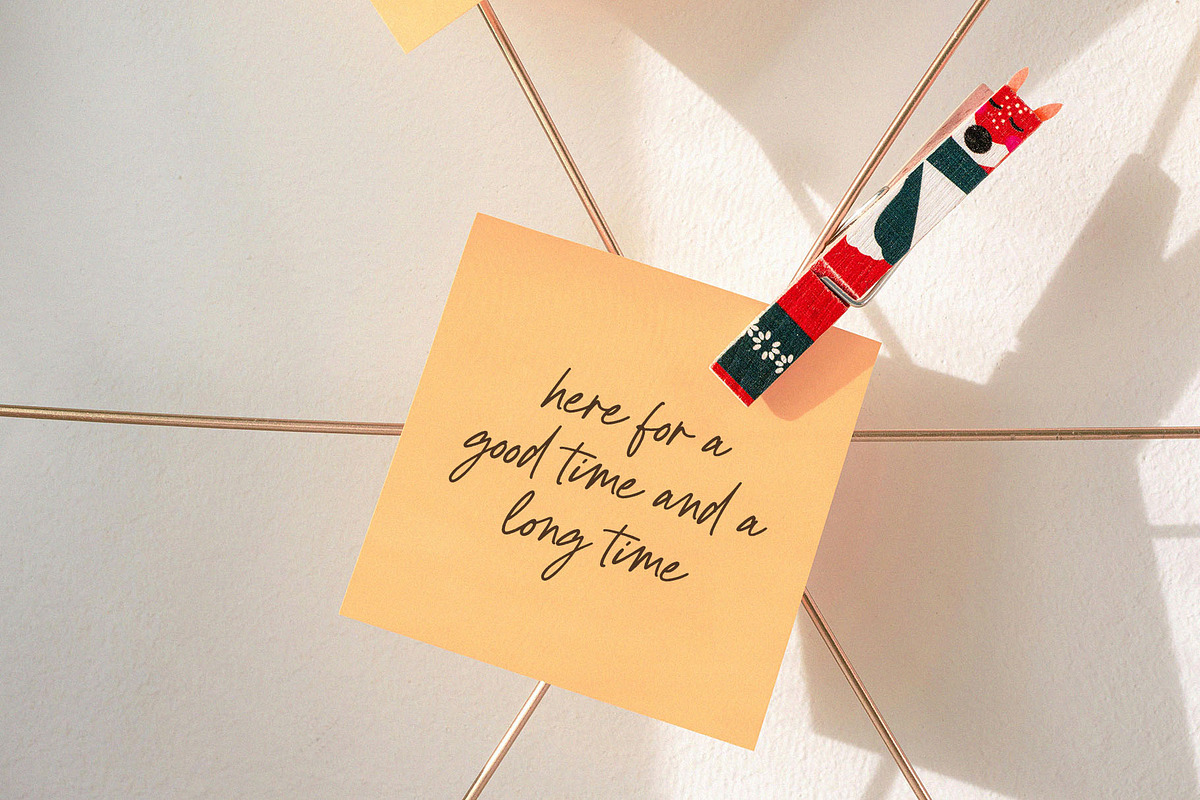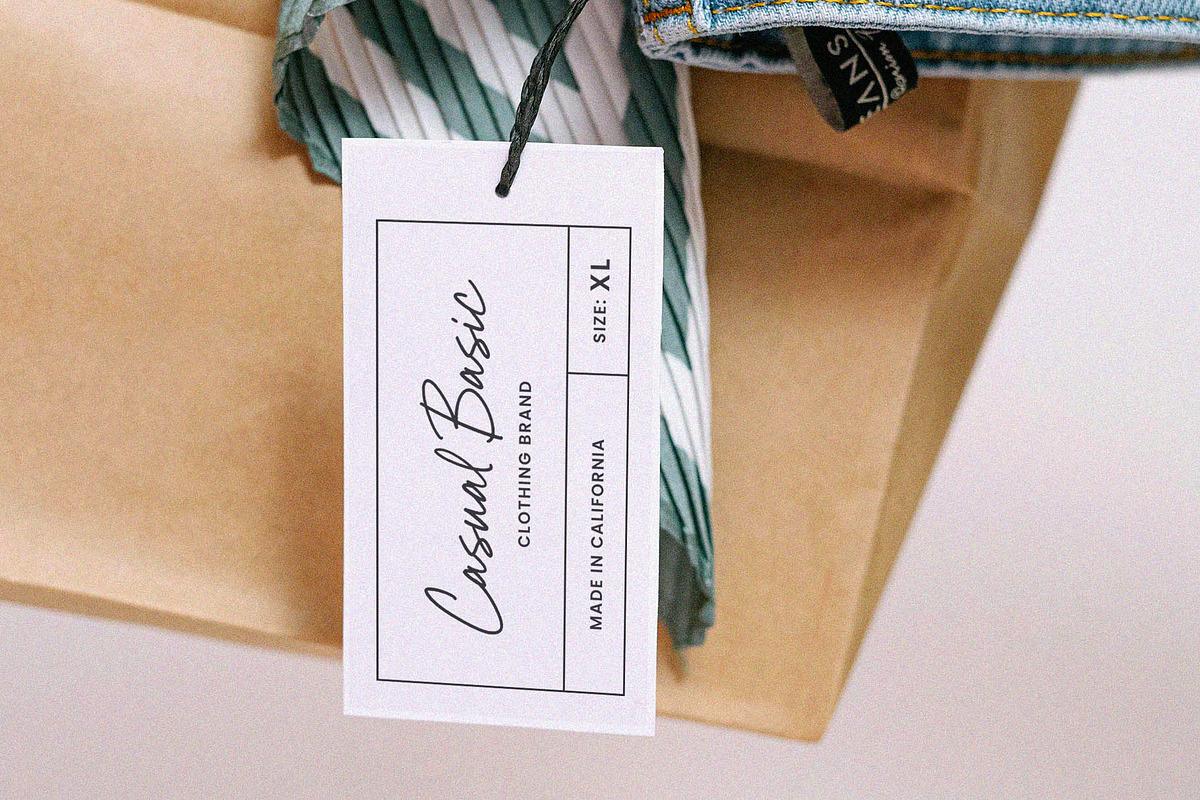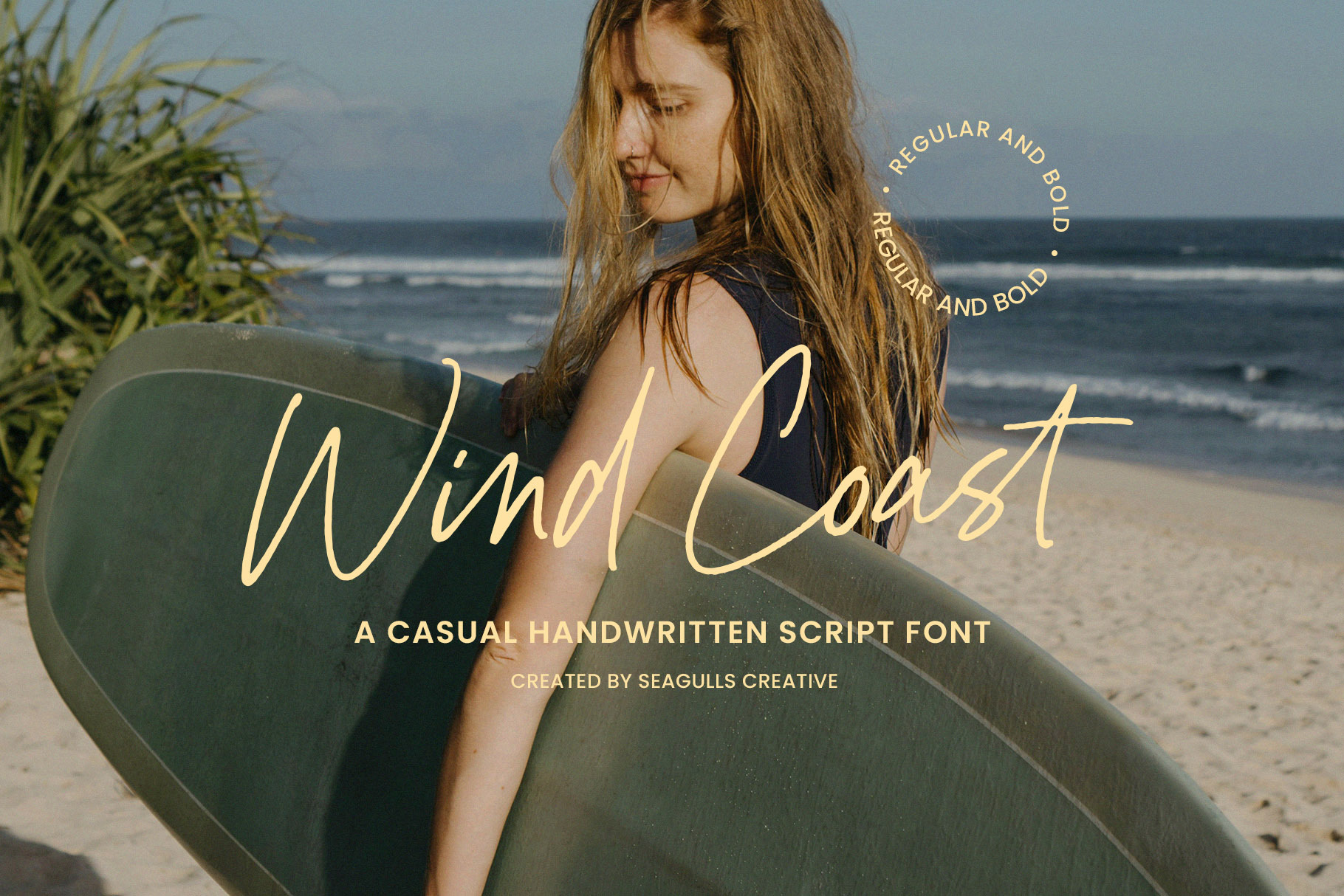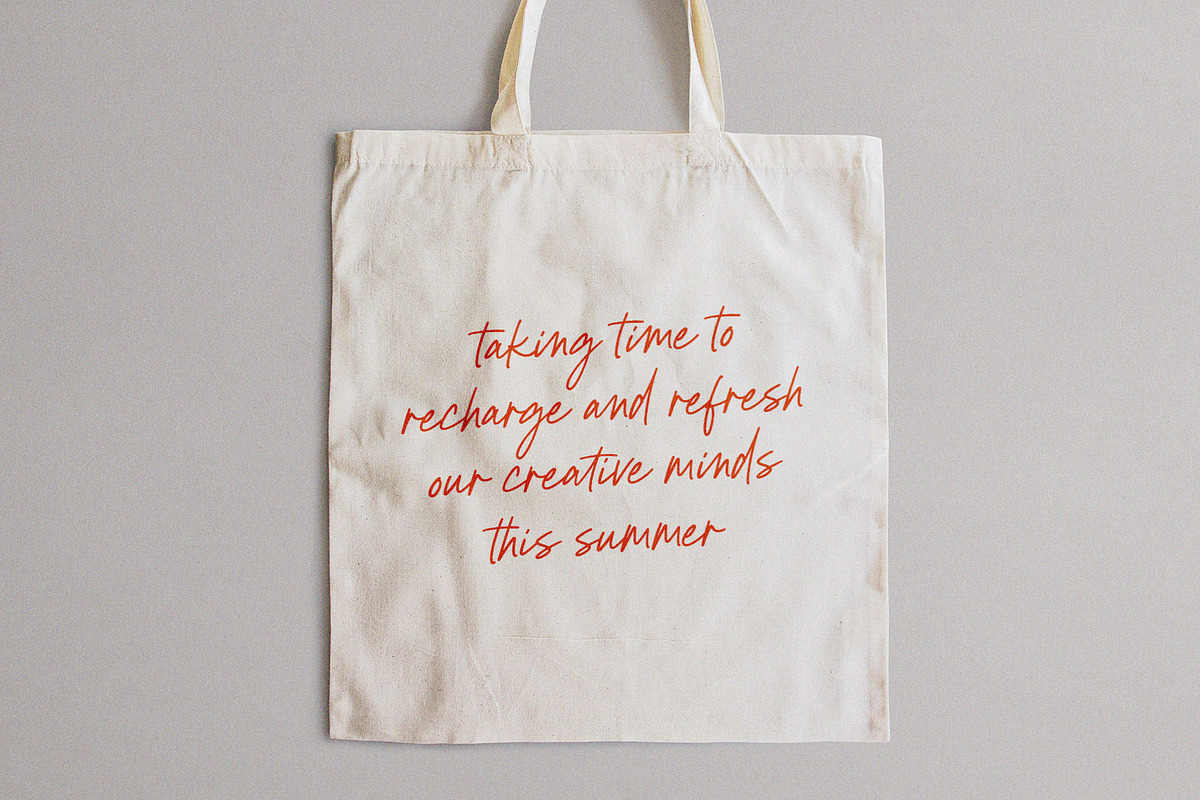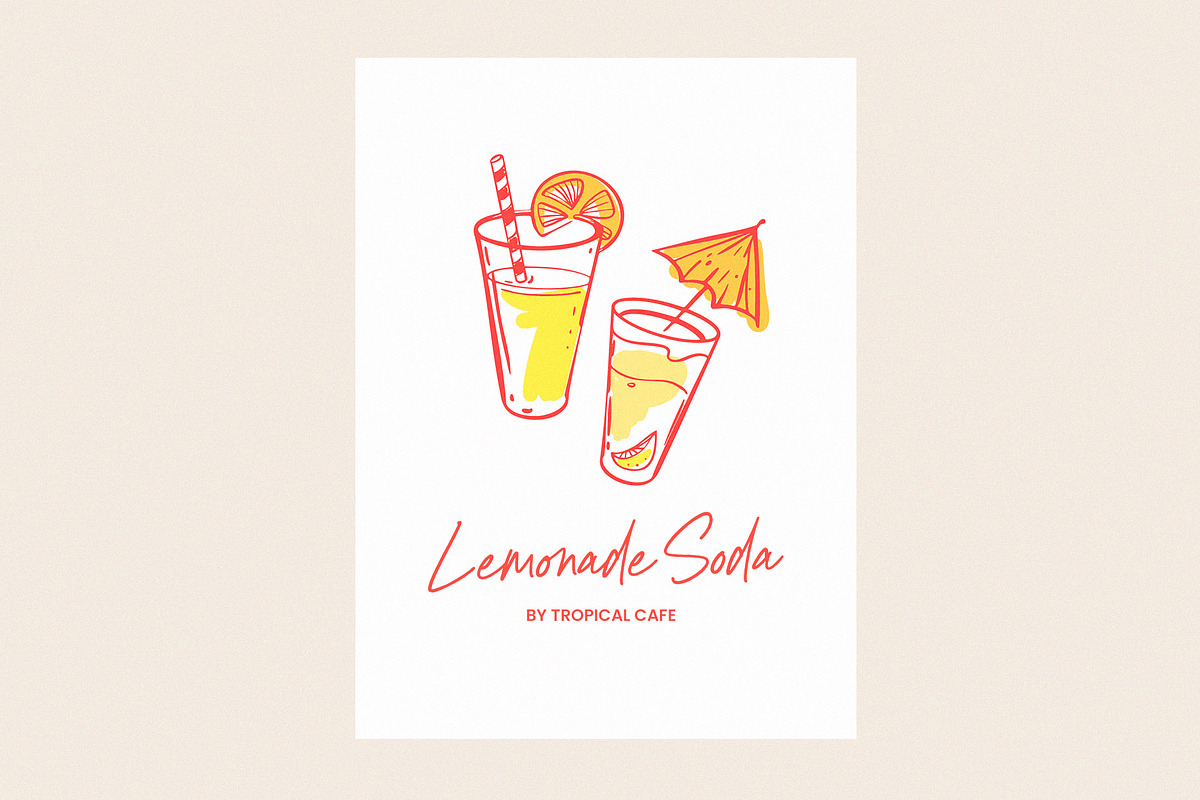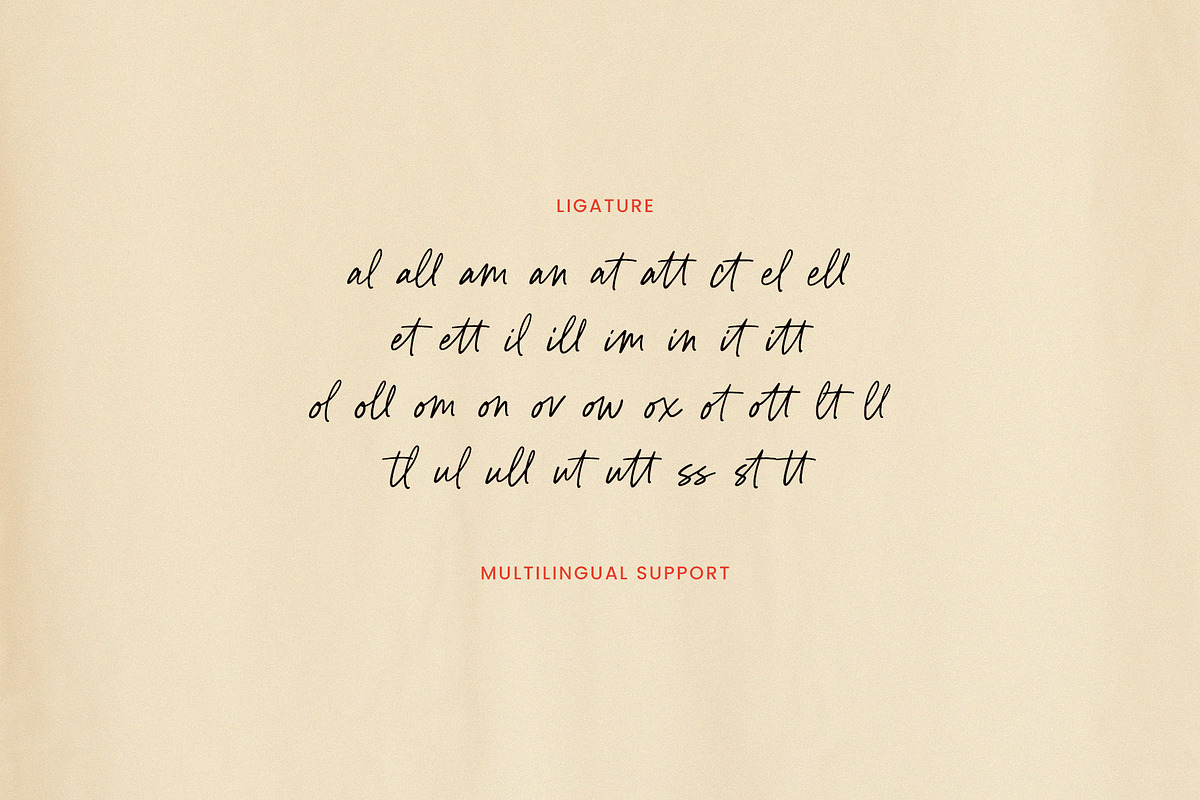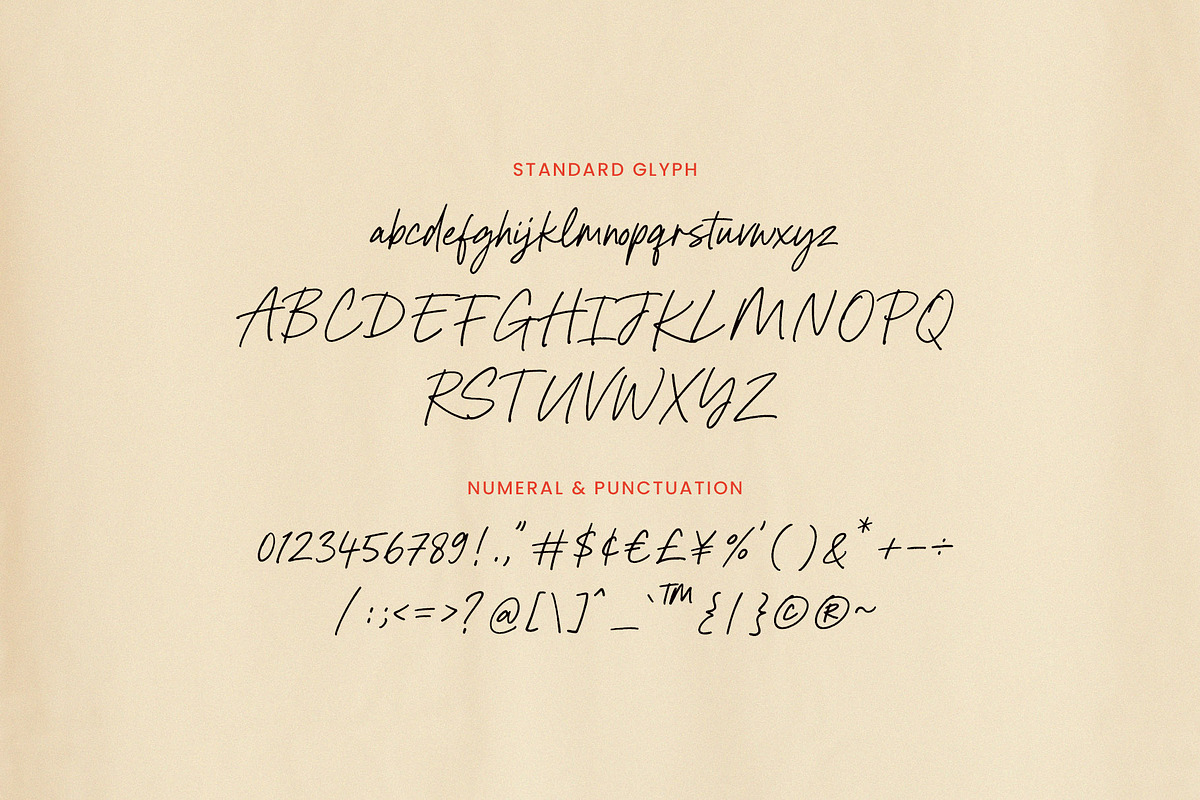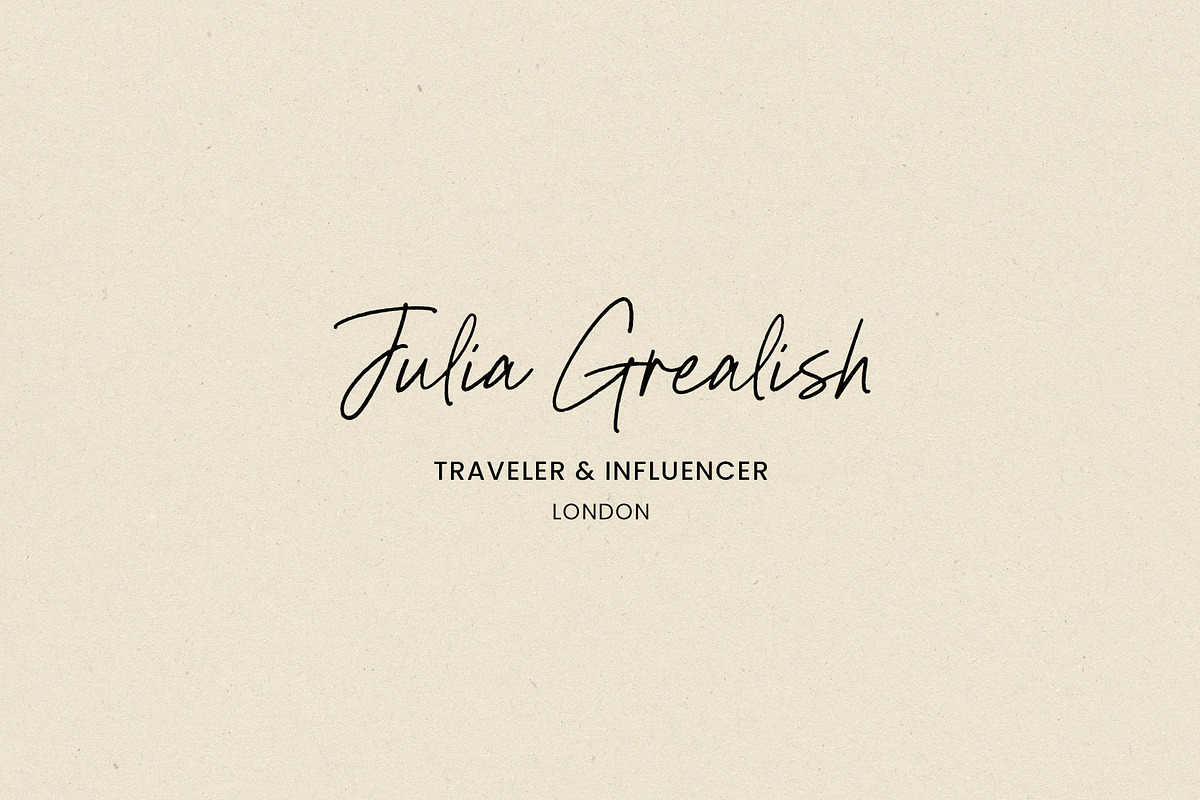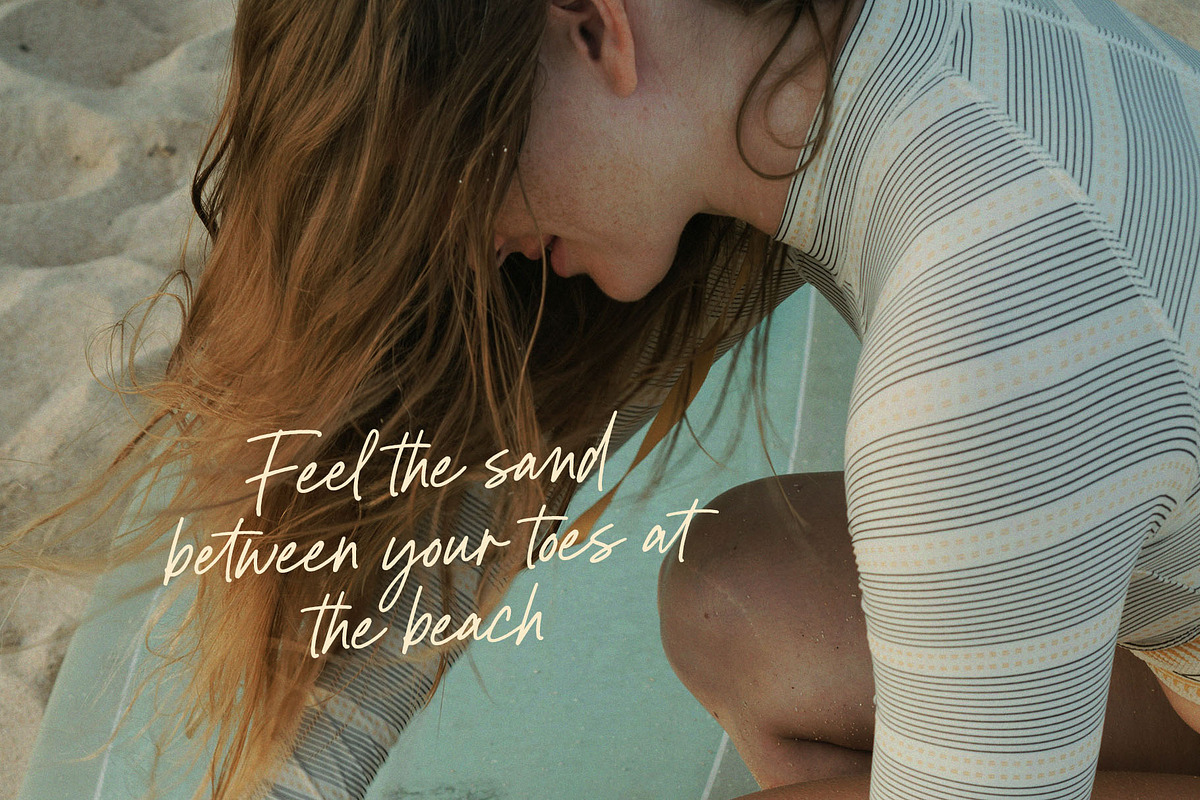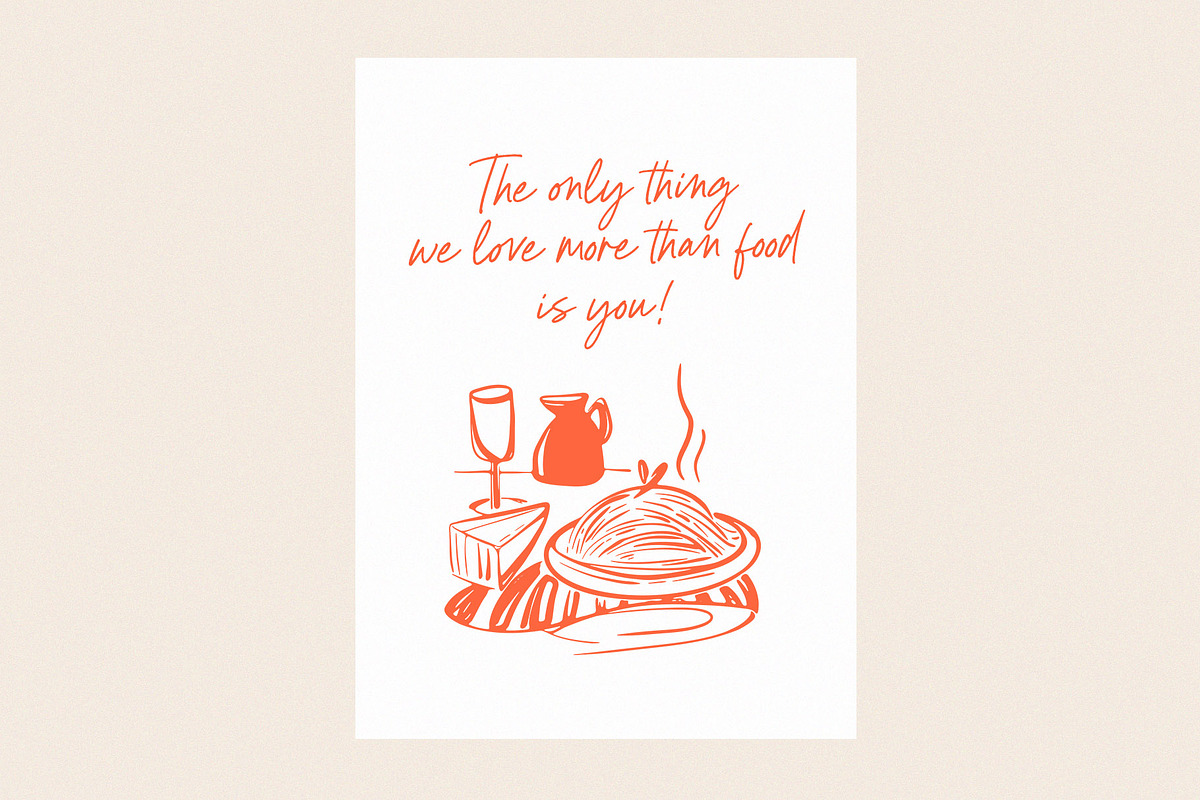
Wind Coast Handwritten Font
Hello everyone, I would like to introduce Wind Coast a modern and casual handwritten script font.
Wind Coast can be used for a variety of projects such as branding, labels, photography, invitations, stationery, wedding designs, social media posts, advertising, product packaging, product design, and more.
- Letters, numbers, symbols, punctuation and ligatures
- Fonts include multilingual support